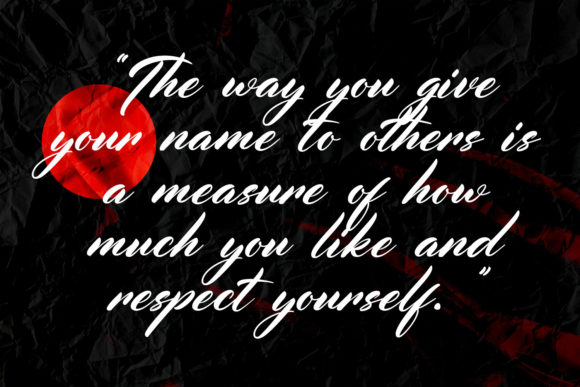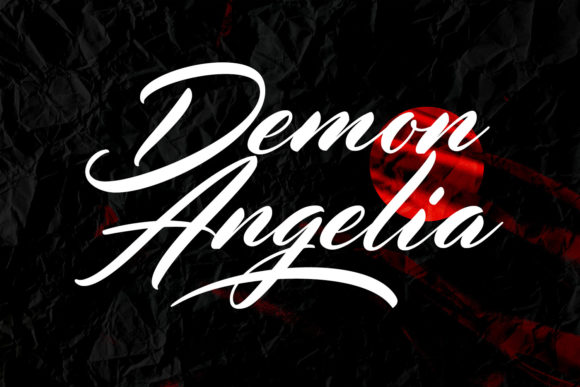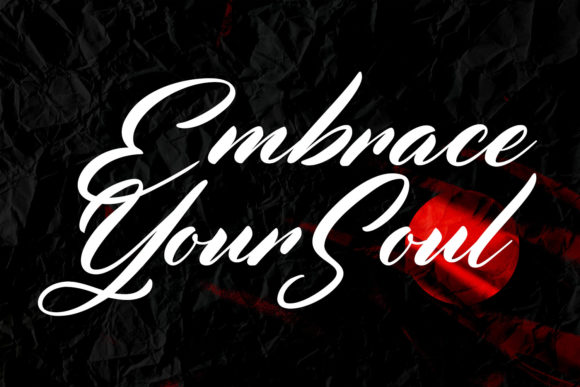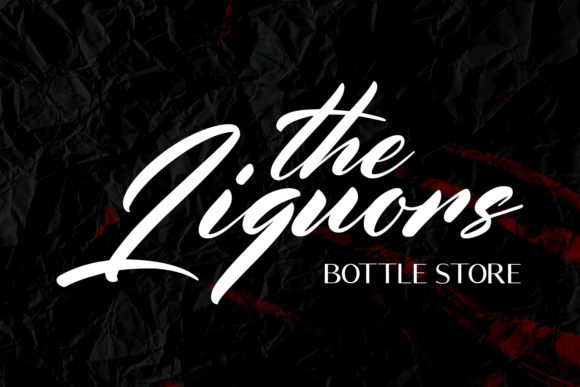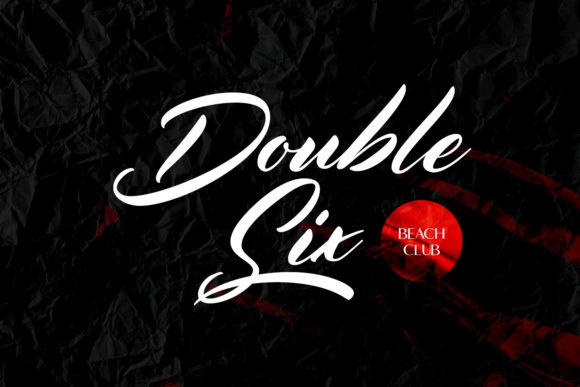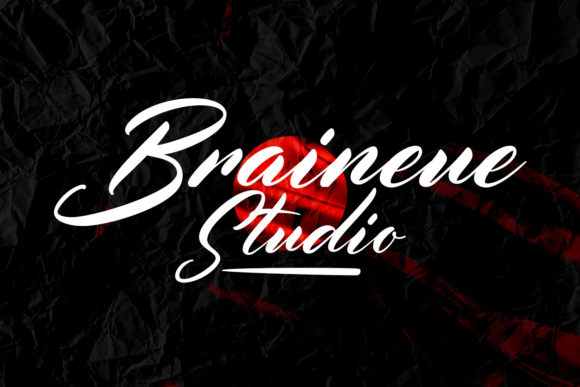
I still remember the frustration of working on a project, hours spent crafting the perfect design, only to realize that the font I chose just wasn’t cutting it. The client wanted something elegant, yet playful; professional, yet eye-catching. Sound familiar? That’s when I stumbled upon Corynette Font, a fancy script font that has since become a staple in my design toolkit.
What Makes Corynette Special?
Corynette is a beautiful script font that boasts medium contrast strokes, fun characters, a dash of ligatures, and alternates. This unique combination makes it an incredibly versatile font that can elevate a wide range of design projects. Whether you’re working on a logo, a wedding invitation, or a brand identity, Corynette is sure to make a statement.
My Honest Review of Corynette
So, what do I love about Corynette? Here are a few highlights:
- ✨ Elegant, yet playful: Corynette strikes the perfect balance between sophistication and whimsy.
- ✅ Versatile: This font works beautifully in a variety of contexts, from digital designs to print materials.
- 💫 Unique character set: The ligatures and alternates add a touch of personality to any design.
Of course, no font is perfect, and Corynette does have a few quirks:
- 🤔 Limited use in body text: While Corynette is stunning in headlines and titles, it may not be the best choice for longer blocks of text.
- ⚠️ Occasional kerning issues: As with any font, you may need to adjust the kerning to get the perfect look.
The Story Behind Corynette
While the true story behind Corynette’s creation may be unknown, it’s easy to imagine a designer sitting at their desk, experimenting with different strokes and letterforms, driven by a passion for beautiful typography. Perhaps they wanted to create a font that would bring a touch of elegance and whimsy to designs. Whatever the inspiration, Corynette is a testament to the power of typography to elevate and transform any design.
| What type of designs is Corynette best suited for? | Corynette is versatile and can be used in a wide range of designs, from logos and branding to wedding invitations and digital graphics. |